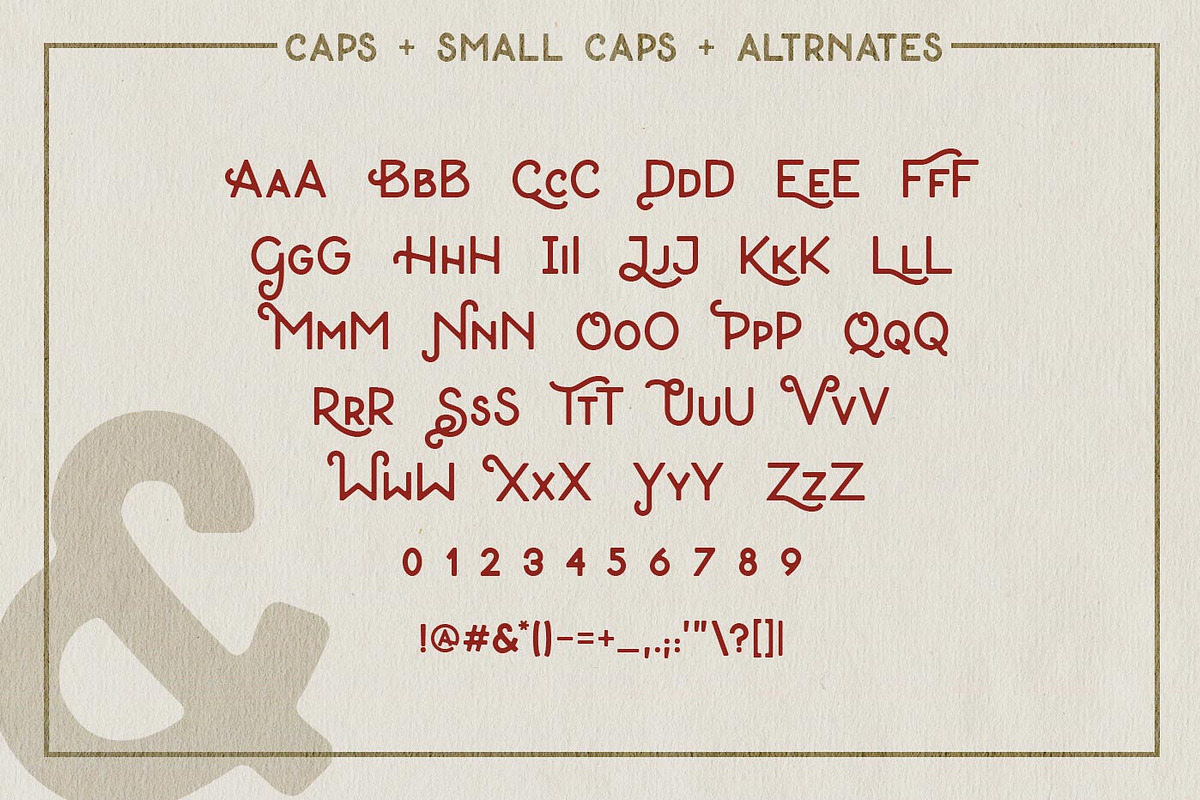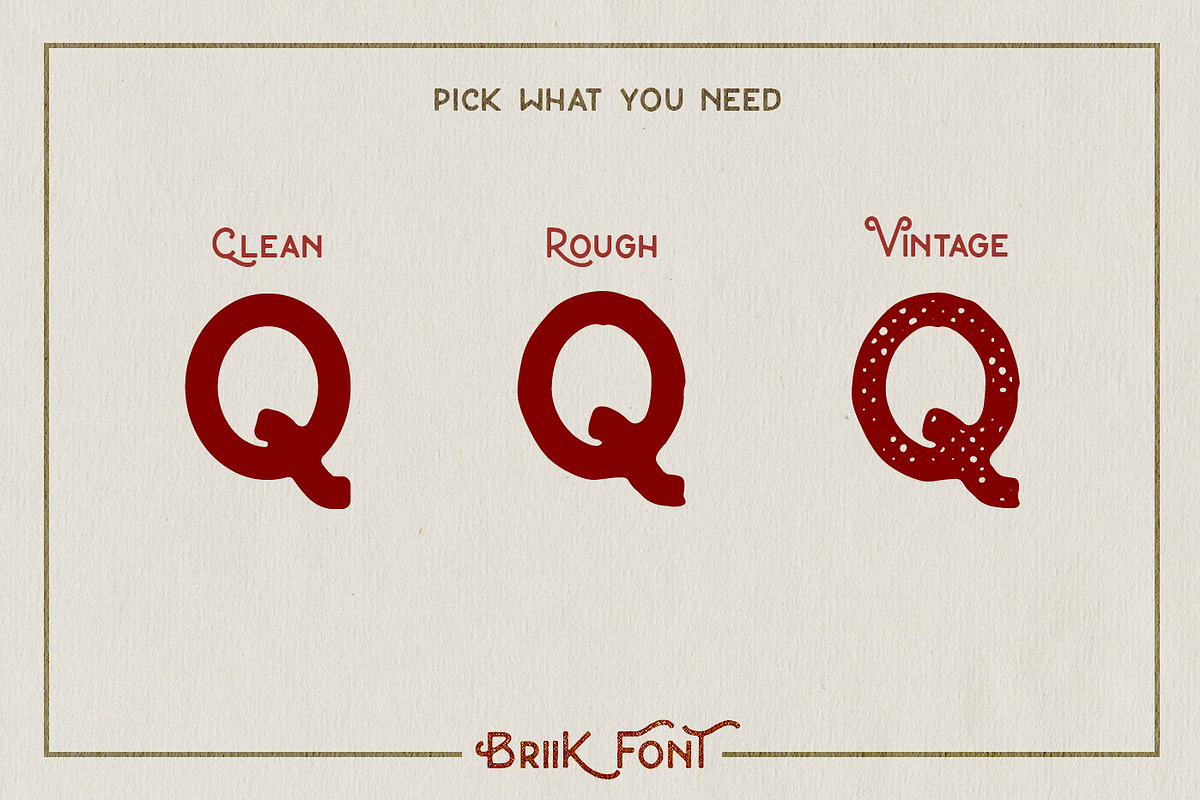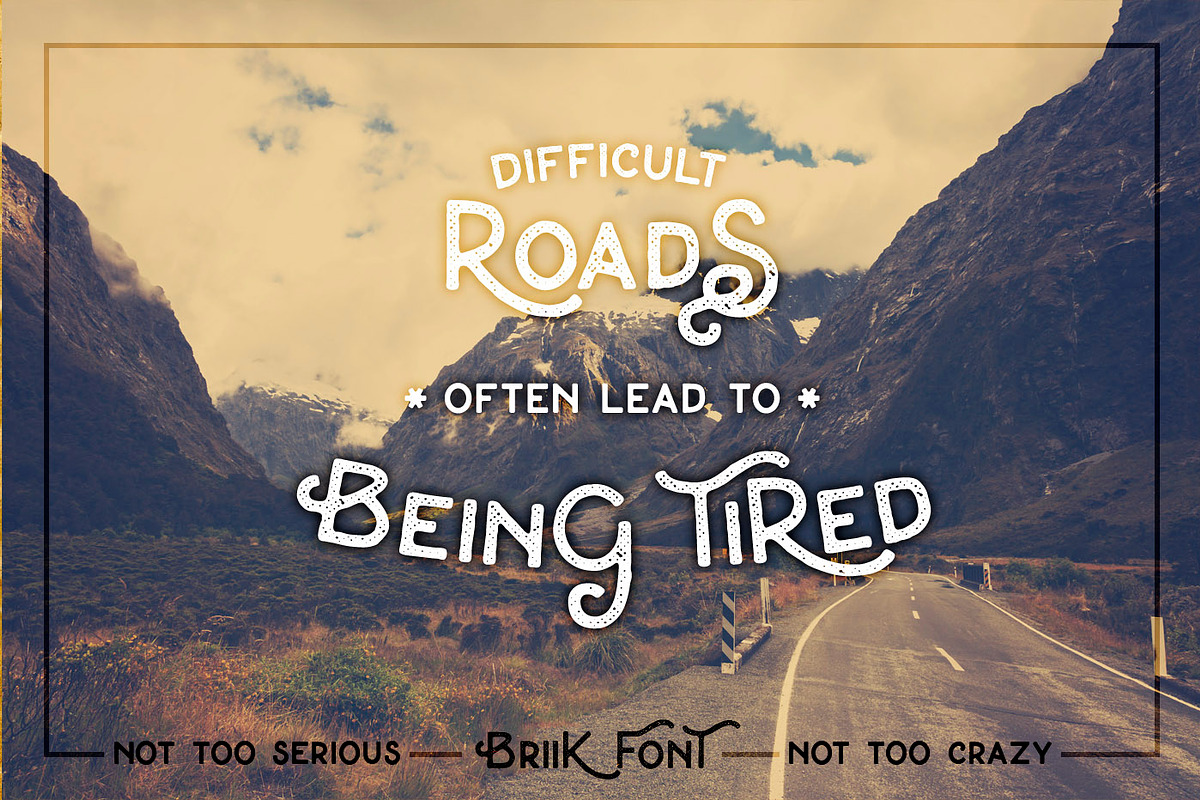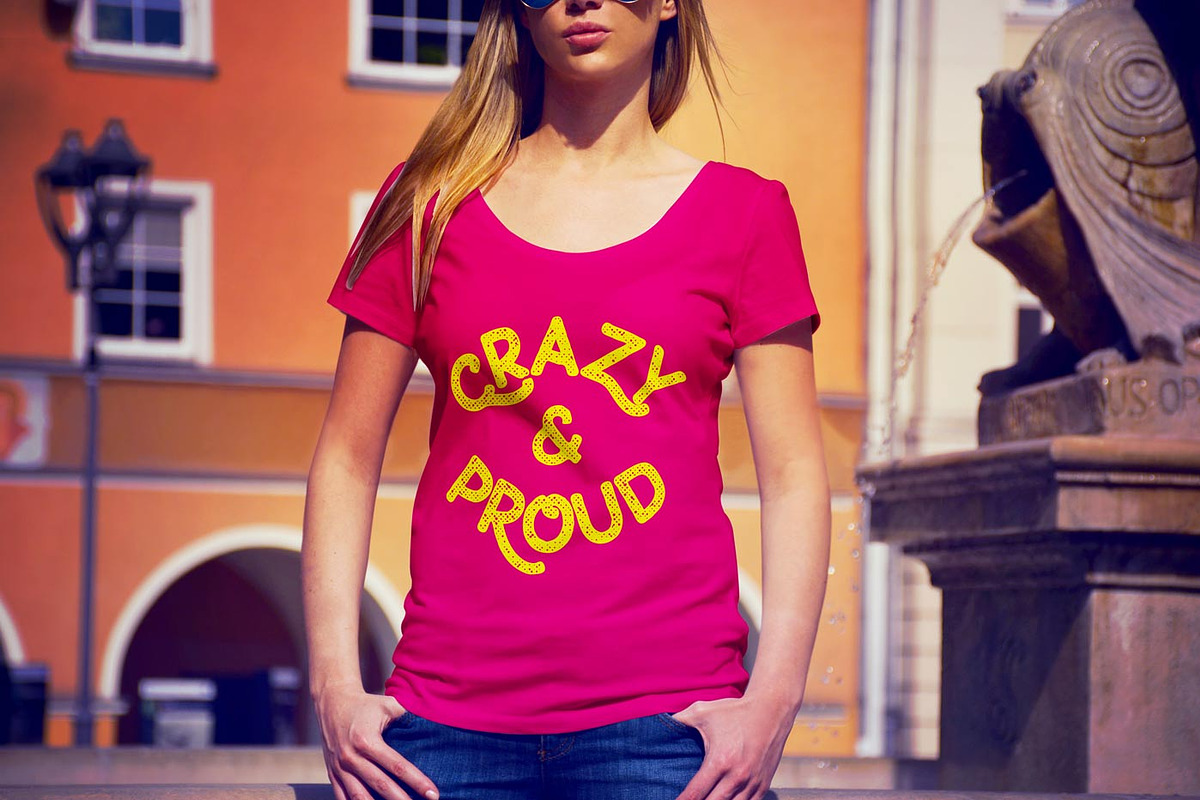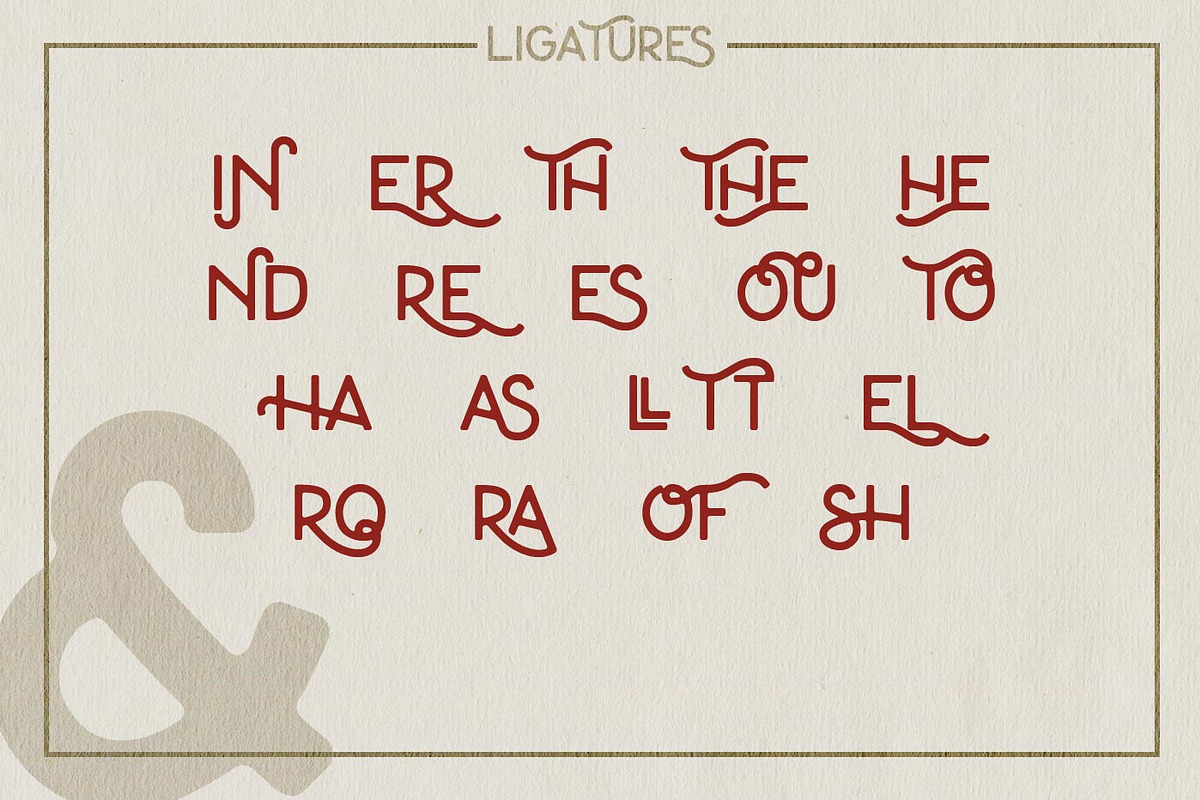
Briik - Hipster Fonts
Briik - Hipster Fonts by Uncle Avi's Supply is a font selected for branding, posters, packaging, typography.
- It is a mono-weight typeface that includes 3 variants: clean, rough and vintage.
- Additionaly to this there are also 19 ligatures.
Why Briik - Hipster Fonts is worth a look
Briik - Hipster Fonts by Uncle Avi's Supply fits naturally into Branding, posters, packaging, typography.